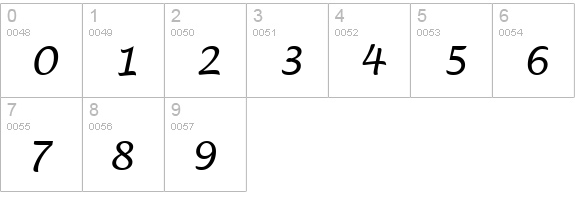
Lucida Handwriting Italic Font Details
Lucida Handwriting Italic is a distinctive, italic variant in the Lucida typeface family \xE2\x80\x94 well suited to design and typography projects.